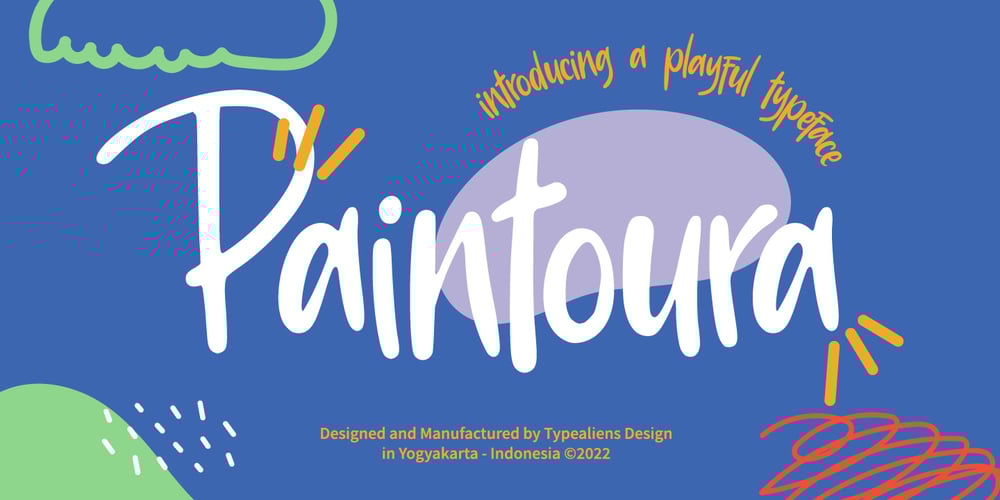
Paintoura Font Family was designed by Ilham Wahyu and published by Ilhamtaro. Paintoura contains 1 styles and family package options. PAINTOURA is a relaxed display font, suitable for playful design, branding and social media needs of a brand. Also suitable for supporting food design or snack packaging. With a relaxed style, this font is very flexible to support modern designs, it can also be used for branding designs in fashion.To enable the OpenType Stylistic alternates, you need a program that supports OpenType features such as Adobe Illustrator CS, Adobe Indesign & CorelDraw X6-X7.Cheers!